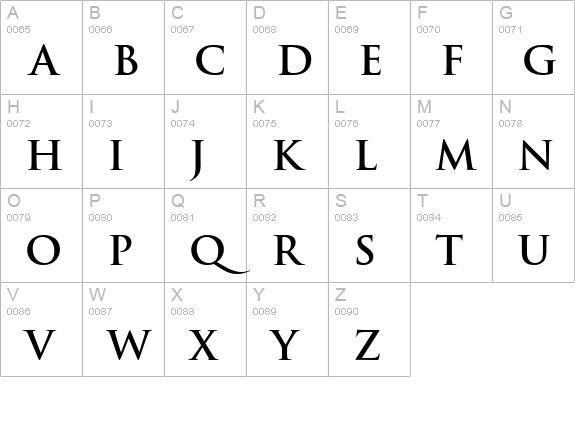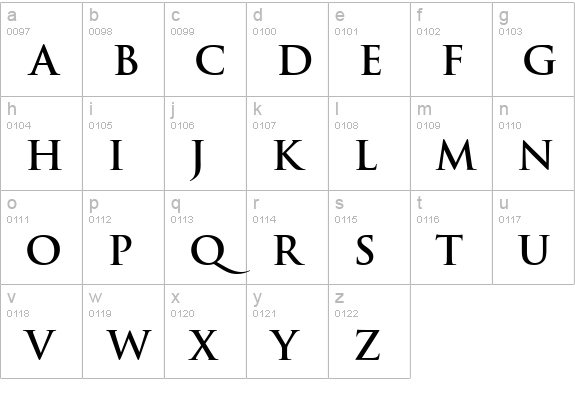
Helios SSi Bold Font Details
Helios SSi Bold is a strong, high-contrast variant in the Helios typeface family \xE2\x80\x94 well suited to headlines, attention-grabbing titles, and strong calls-to-action.
Helios SSi Bold font is a bold and powerful typeface that commands attention with its strong and confident letterforms. Designed with meticulous attention to detail, this font exudes a sense of authority and elegance, making it the perfect choice for headlines, logos, and other display purposes. The bold weight of Helios SSi Bold font adds a touch of sophistication and modernity to any design, while maintaining a timeless appeal. Its bold strokes and clean lines create a sense of stability and strength, making it ideal for conveying a sense of trustworthiness and reliability. With a wide range of characters including uppercase letters, lowercase letters, numbers, and punctuation marks, Helios SSi Bold font offers versatility and flexibility for all your design needs. Whether you're creating a sleek and professional corporate identity or designing eye-catching promotional materials, this font has you covered. One of the best features of Helios SSi Bold font is that it is available for free download at FontsMarket.com. This means that you can easily access and use this font without any cost, making it a valuable resource for designers, students, and anyone looking to add a touch of elegance and boldness to their projects. So why wait? Download Helios SSi Bold font today and unleash its power and versatility in your designs. Whether you're designing a logo, creating a poster, or crafting a website, this font will elevate your creations to new heights. Don't miss out on this incredible opportunity to enhance your design arsenal with a high-quality, freely available font. Get Helios SSi Bold font now and let your creativity shine!